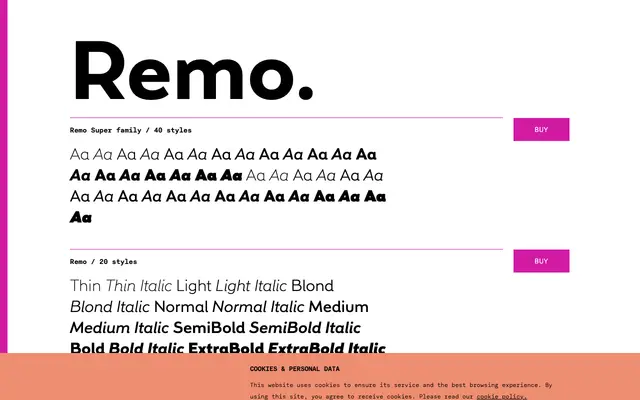
A 40-style grotesque super family from TYPE BY, spanning ten weights from Thin to Ultra across two subfamilies with full italic coverage and an extensive set of OpenType features.
The family is split into Remo and Remo Plus, each running 20 styles across ten weights from Thin to Ultra with matching italics. OpenType support is thorough, covering small capitals, oldstyle and tabular figures, fractions, historical forms and twelve stylistic sets, making it well equipped for demanding editorial and typographic work. The weight range and feature depth position it as a capable workhorse across both text and display applications.
The specimen and weight range suggest a contemporary grotesque sans-serif with a broad, workhorse character; the extended weight scale from Thin to Ultra and the presence of a 'Plus' subfamily indicate a large general-purpose grotesque family.